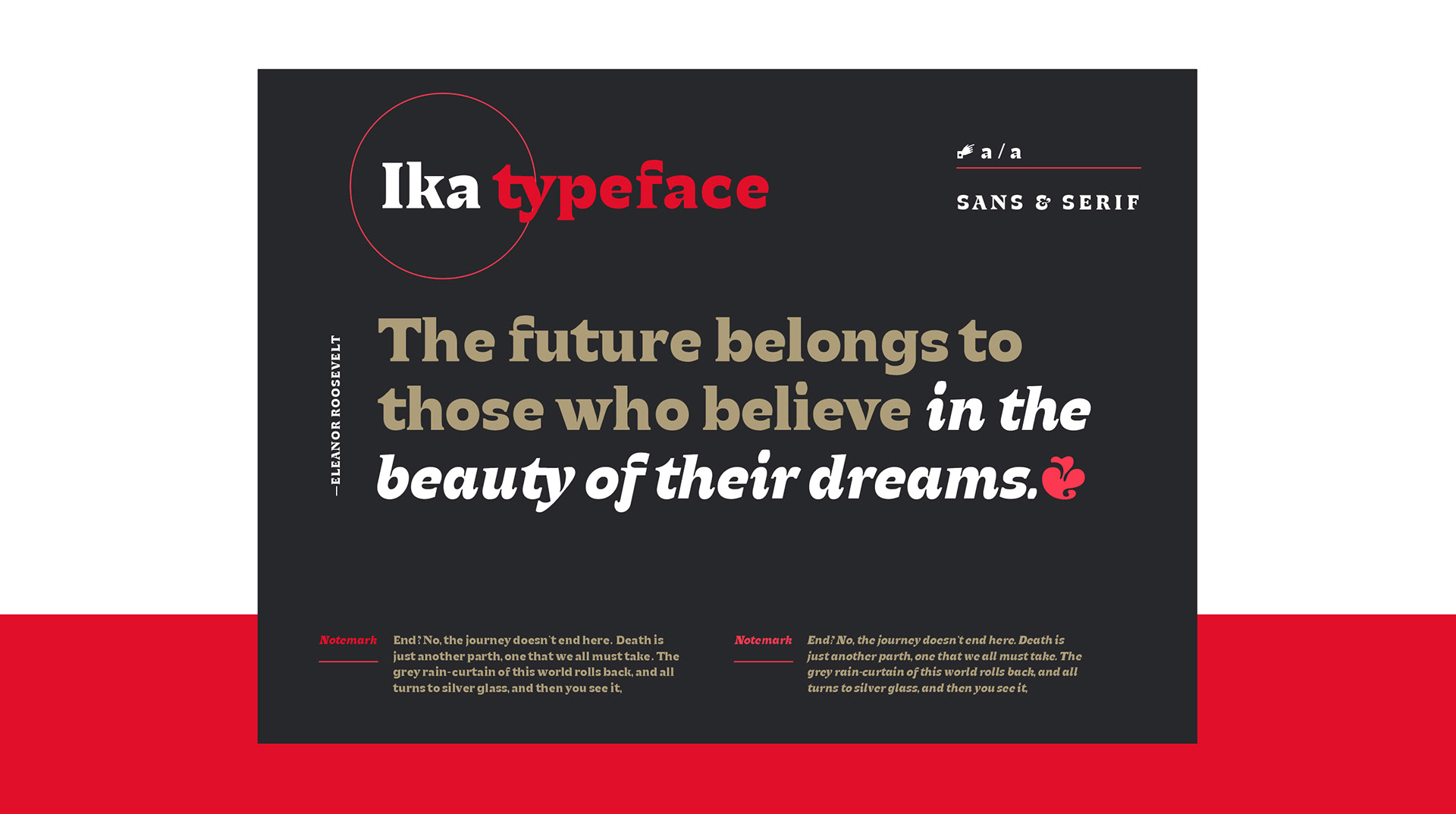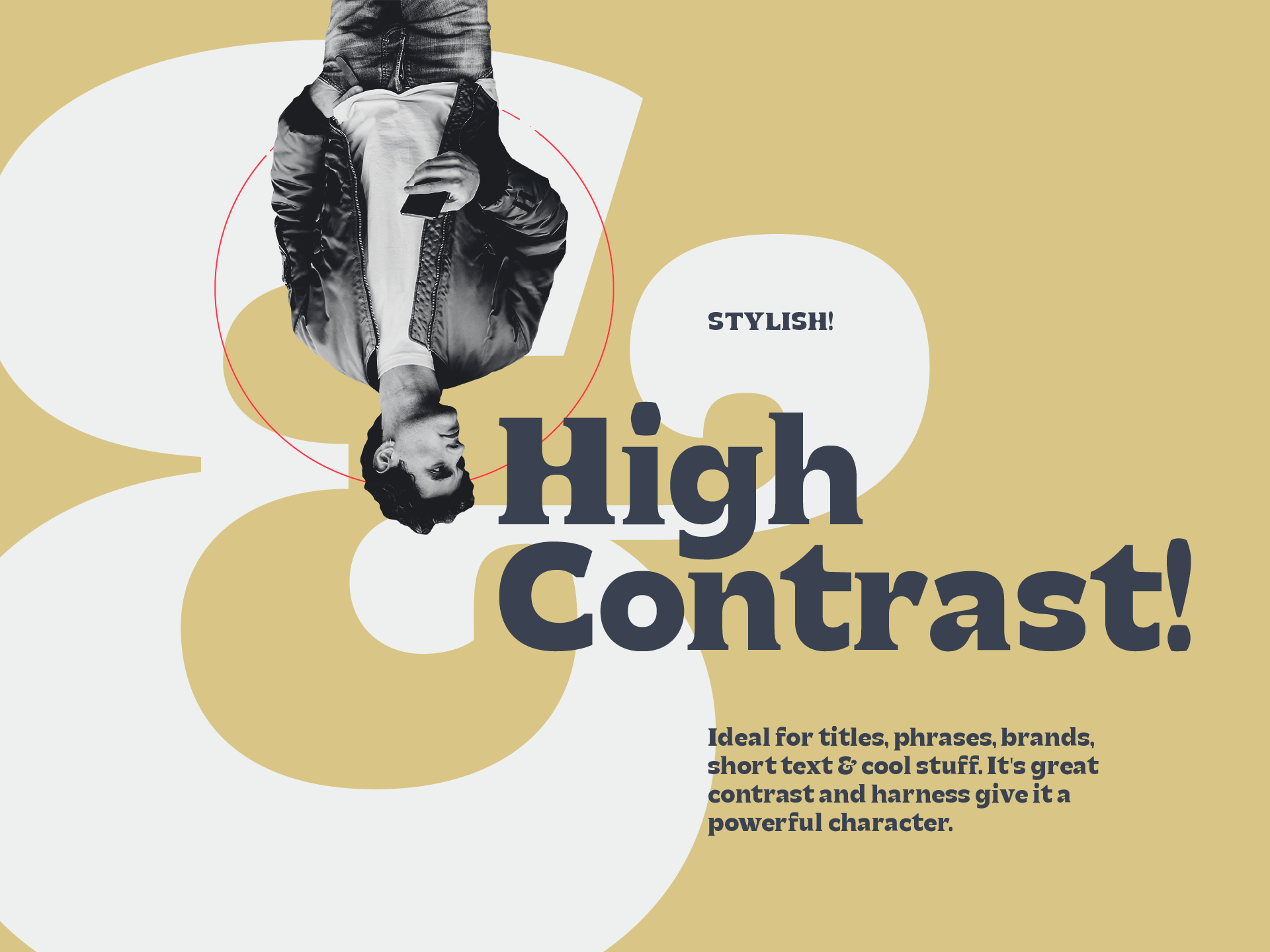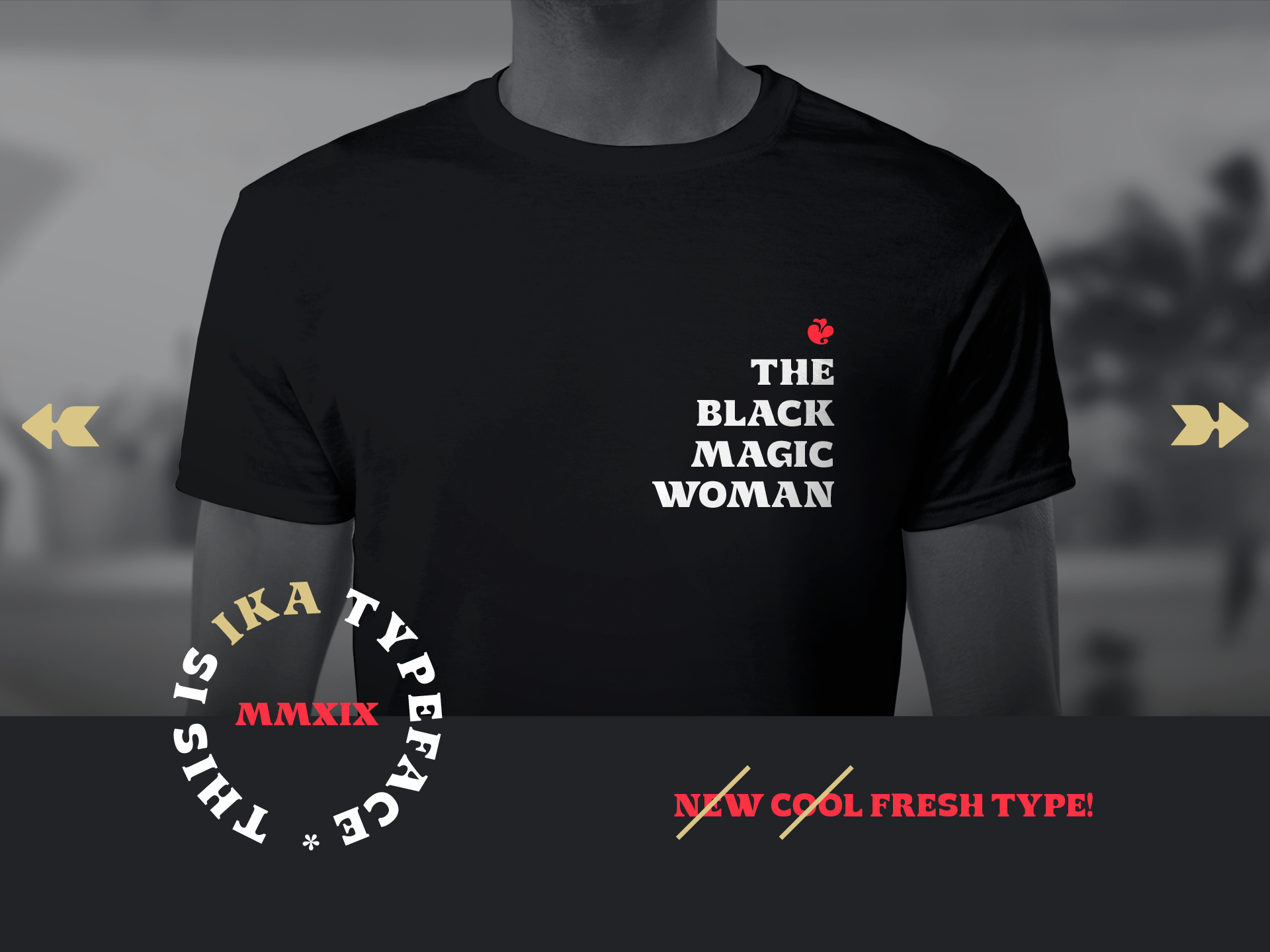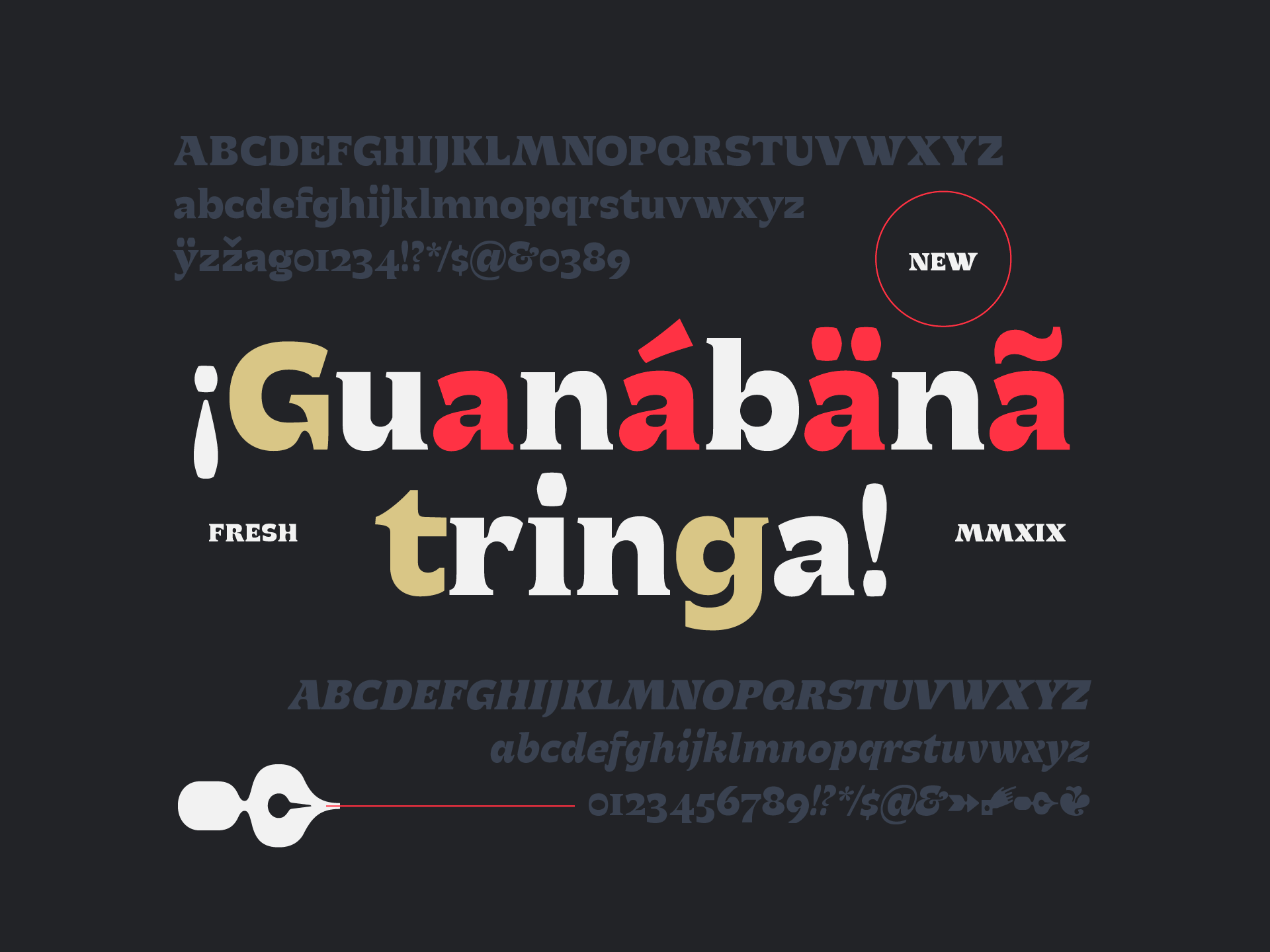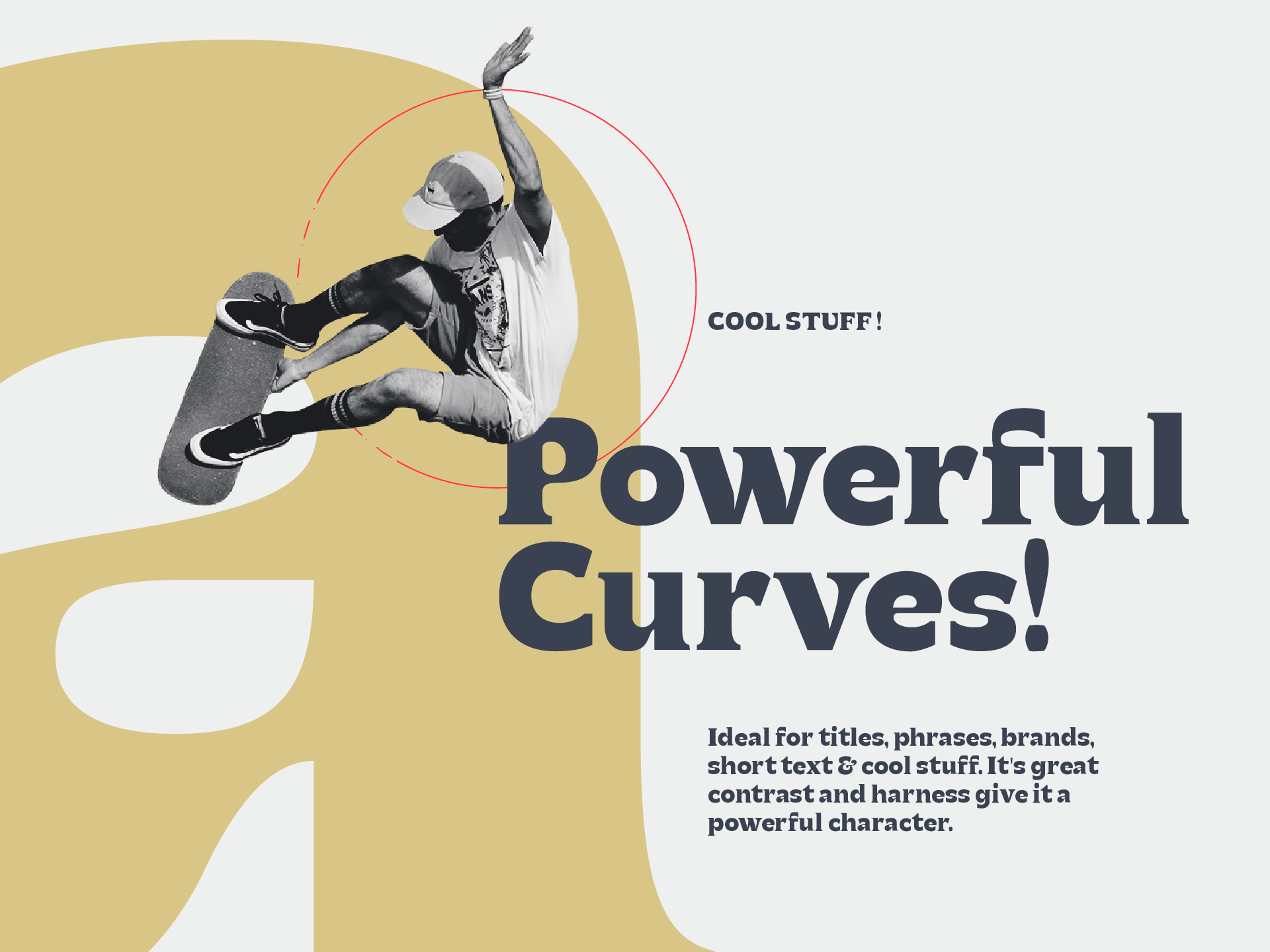
Born from the exploration of the pen flexible dot and high contrast scanning. It is designed to be a variable font that goes from thin to thick, in addition to having some decorative calligraphic ornaments. The family is developing.